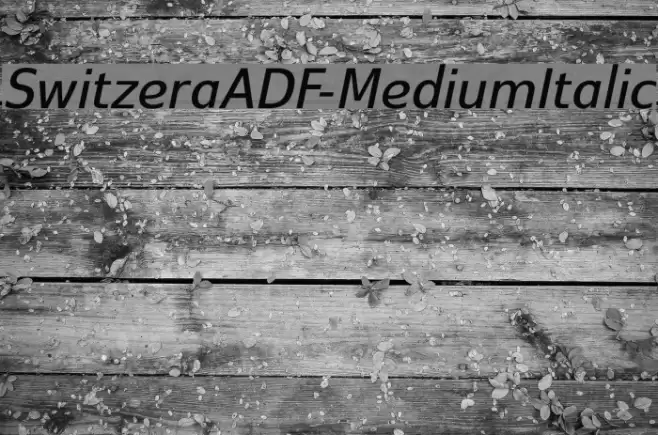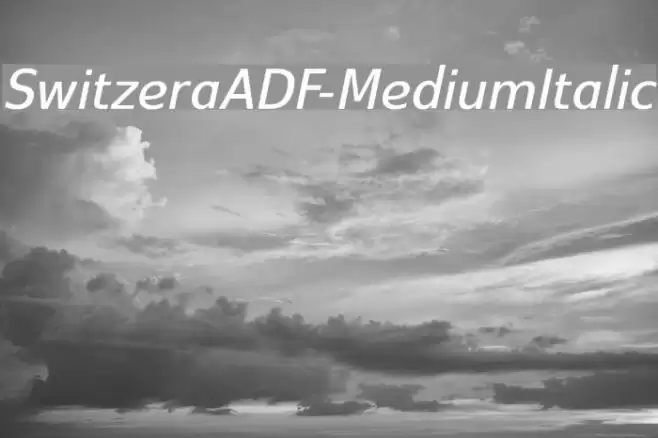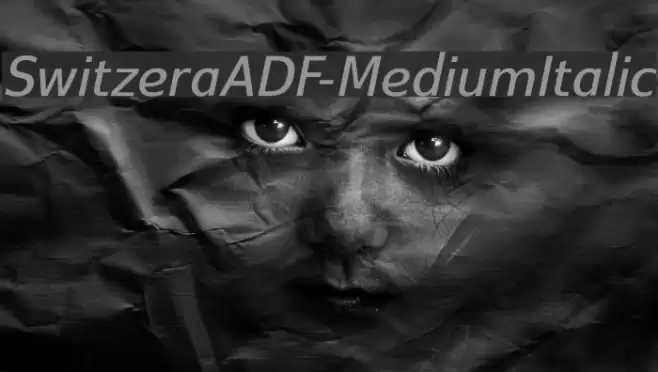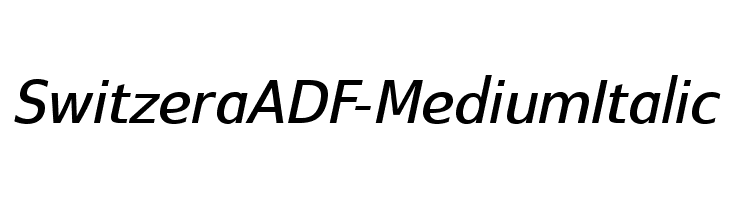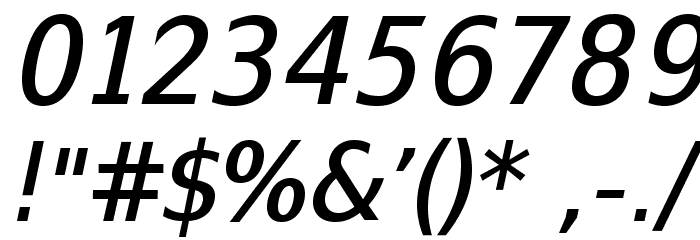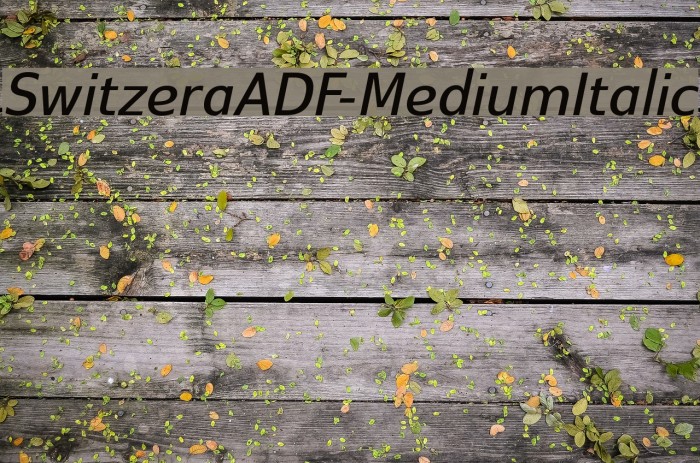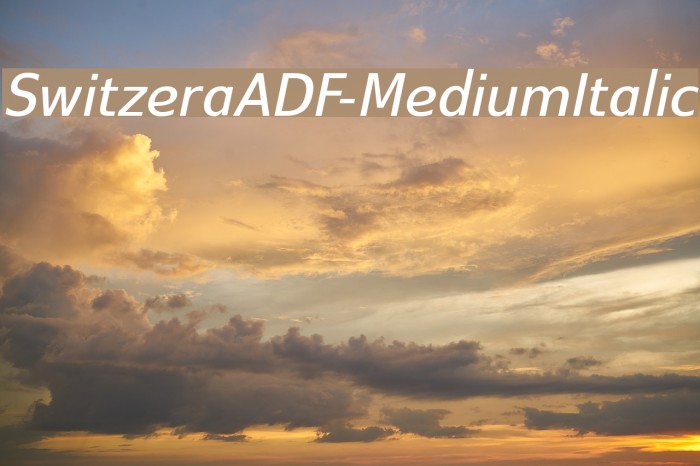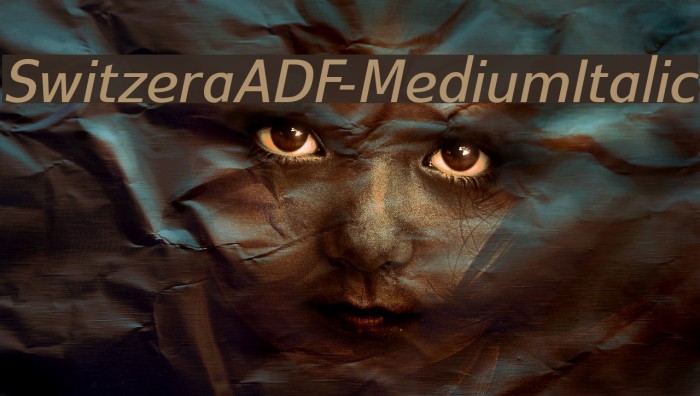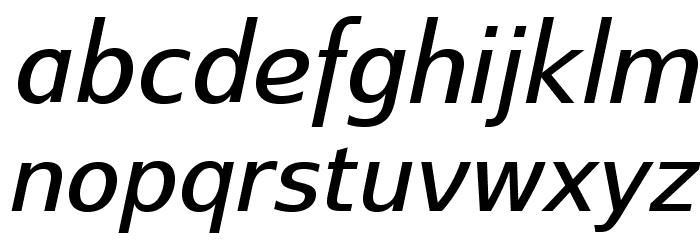
SwitzeraADF-MediumItalic Font
SwitzeraADF-MediumItalic Description
This font exhibits a modern and sleek design with a slight italic slant, giving it a dynamic and forward-moving appearance. The characters are well-proportioned with a consistent stroke width, contributing to a clean and professional look. The uppercase letters are bold and commanding, while the lowercase letters maintain a smooth and approachable style. The numerals are clear and distinct, ensuring readability. Special characters are designed with precision, complementing the overall aesthetic. This font is versatile, suitable for both digital and print media, and can enhance the visual appeal of various projects.
A modern, italicized font with a sleek and professional design from Uncategorized fonts.
- Proposed Projects: Ideal for branding, advertising, web design, and editorial layouts.